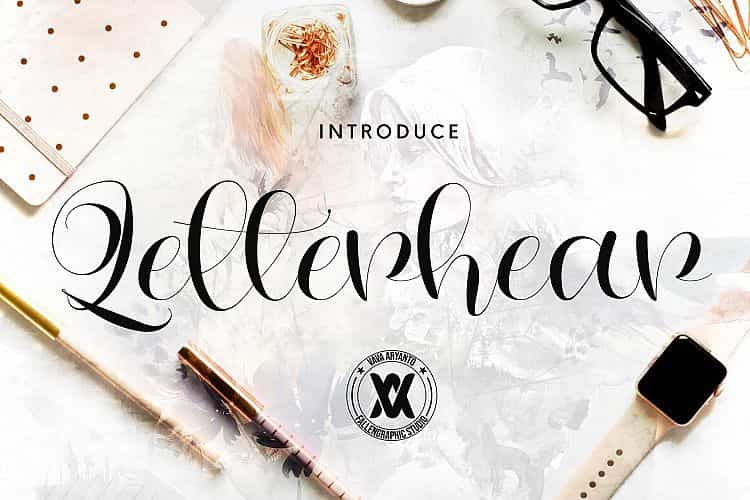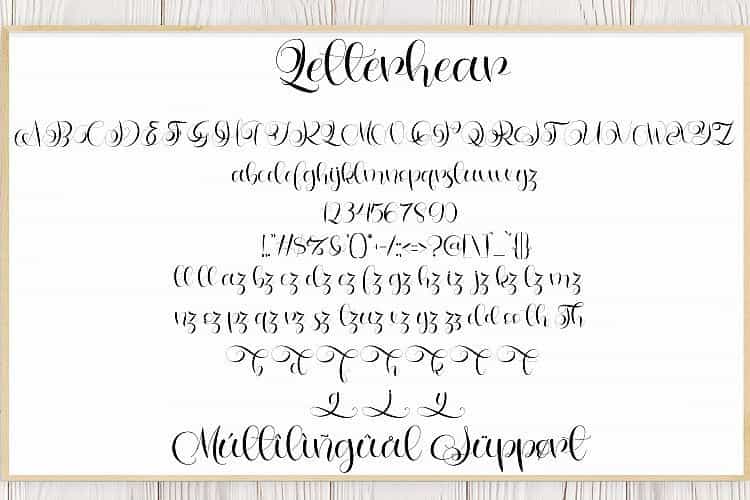
Hello world..!! Say hello to Letterhear Font. All characters have an imperfect shape that will give your text a unique look design and more natural. Letterhear script based on modern calligraphy fonts, the feminine calligraphy styles of the typeface with a simple calligraphy style. It offers a list of alternative signifying smooth graffiti, connecting with common easy-to-read words.